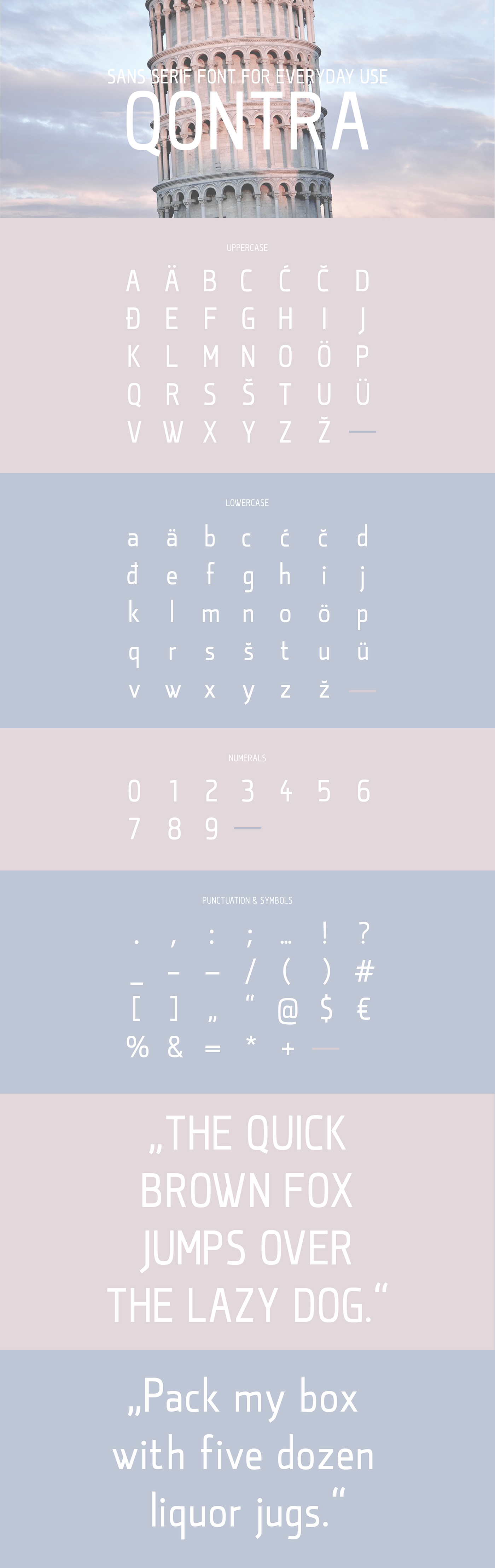
QONTRA is a condensed sans serif font with low contrast which suit well any kind of texts and typographic applications.
It works best for informative texts, headings and advertising or book/magazine & newspaper design.